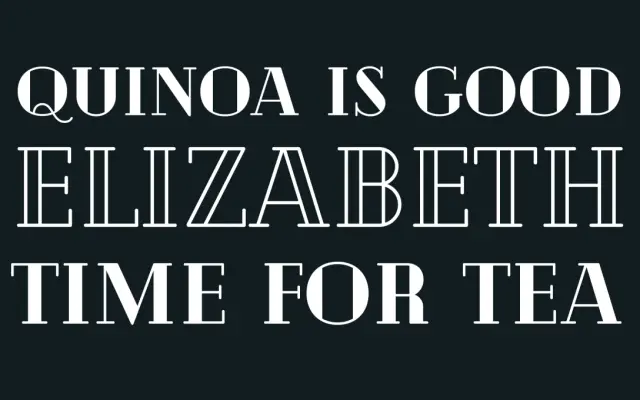
Cheque
Fontfabric · Mirela Belova · 2017
A two-weight display face by Mirela Belova, blending geometric construction with blackboard-lettering influence for a vintage-inflected headline style.
Designed by Mirela Belova as a student project at Fontfabric and released in 2017, the family spans just two cuts, Regular and Black, both freely available for personal and commercial use. Sharp geometric edges sit alongside a retro, hand-drawn quality drawn from blackboard scripts, making it a useful choice for posters, album covers and editorial headlines. Multilingual support covers extended Latin and Cyrillic, with OpenType features included.
Described explicitly as a display typeface by the foundry, drawn from blackboard lettering with sharp geometric edges and a vintage-retro character. Its headline-focused design and limited weight range confirm a display classification.